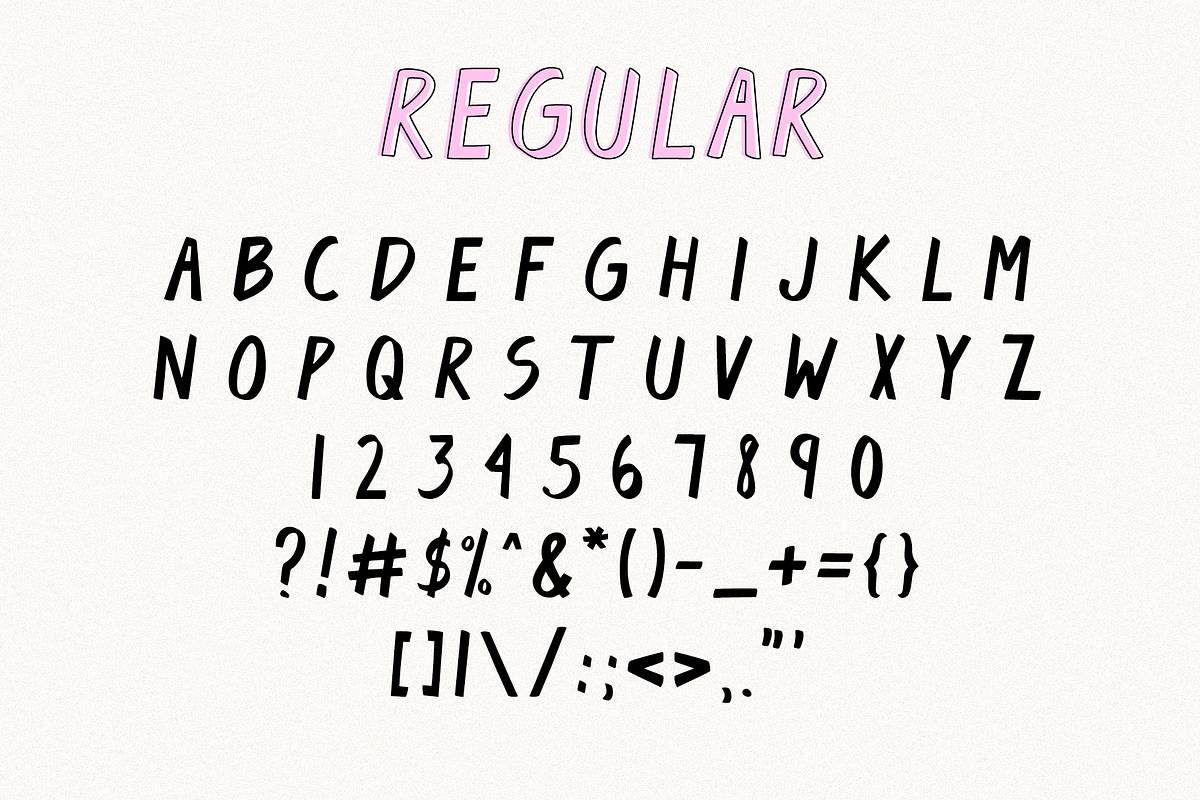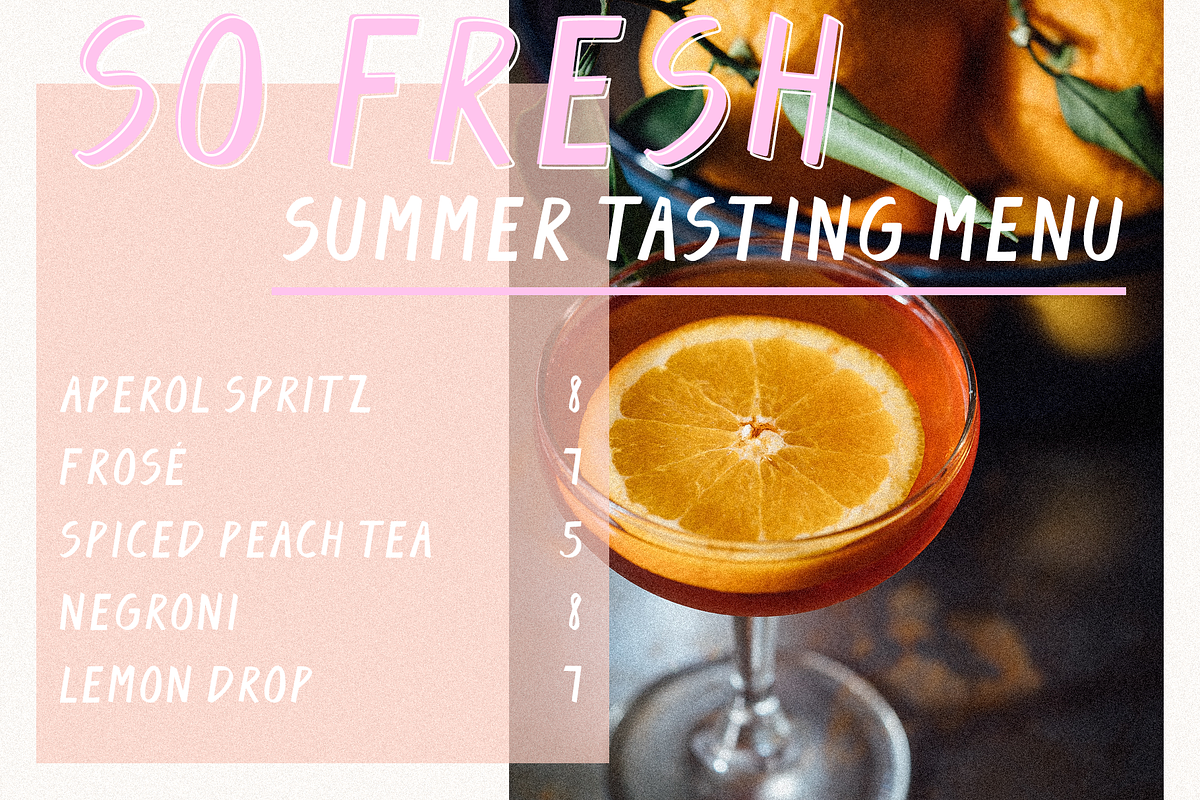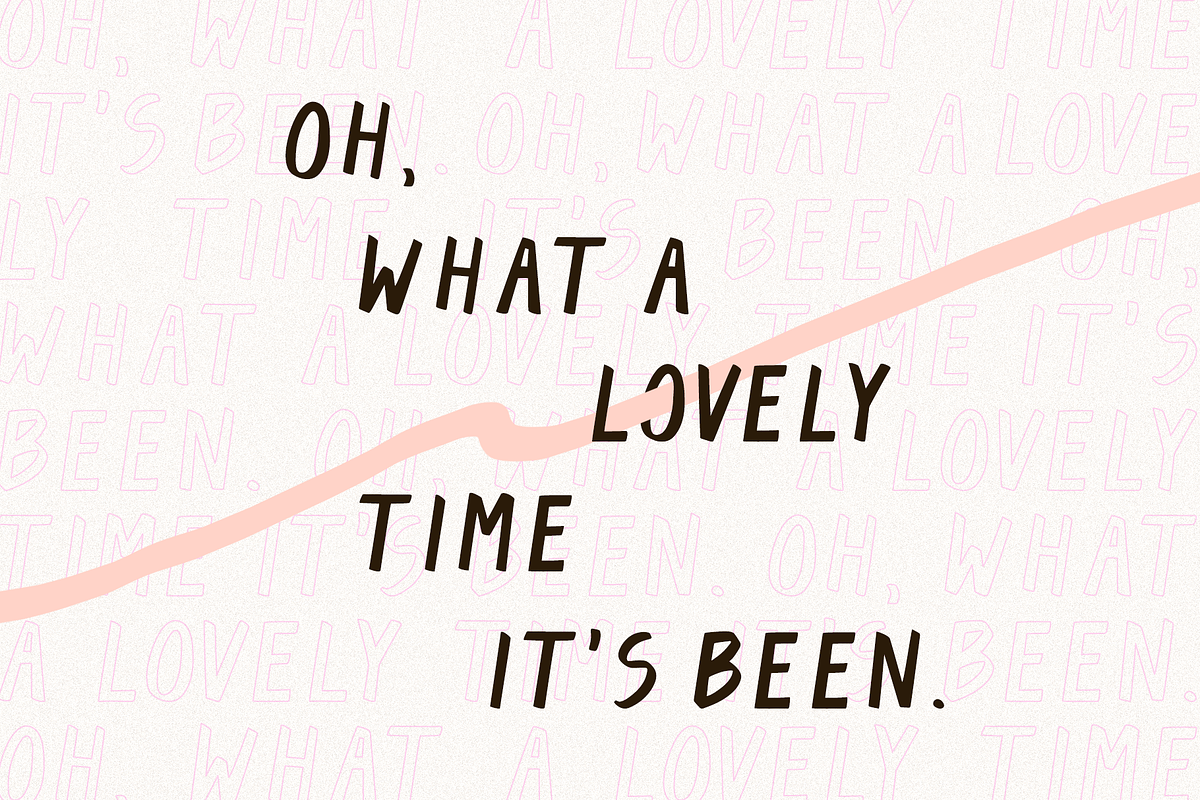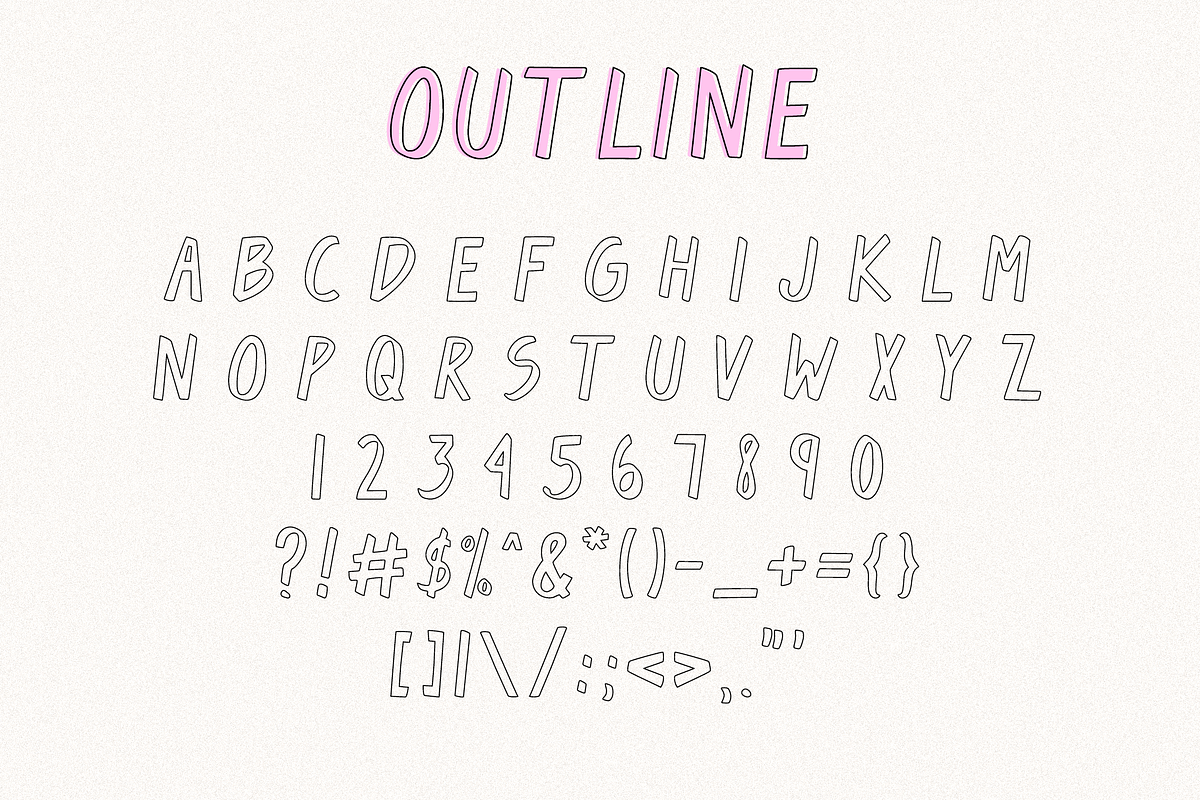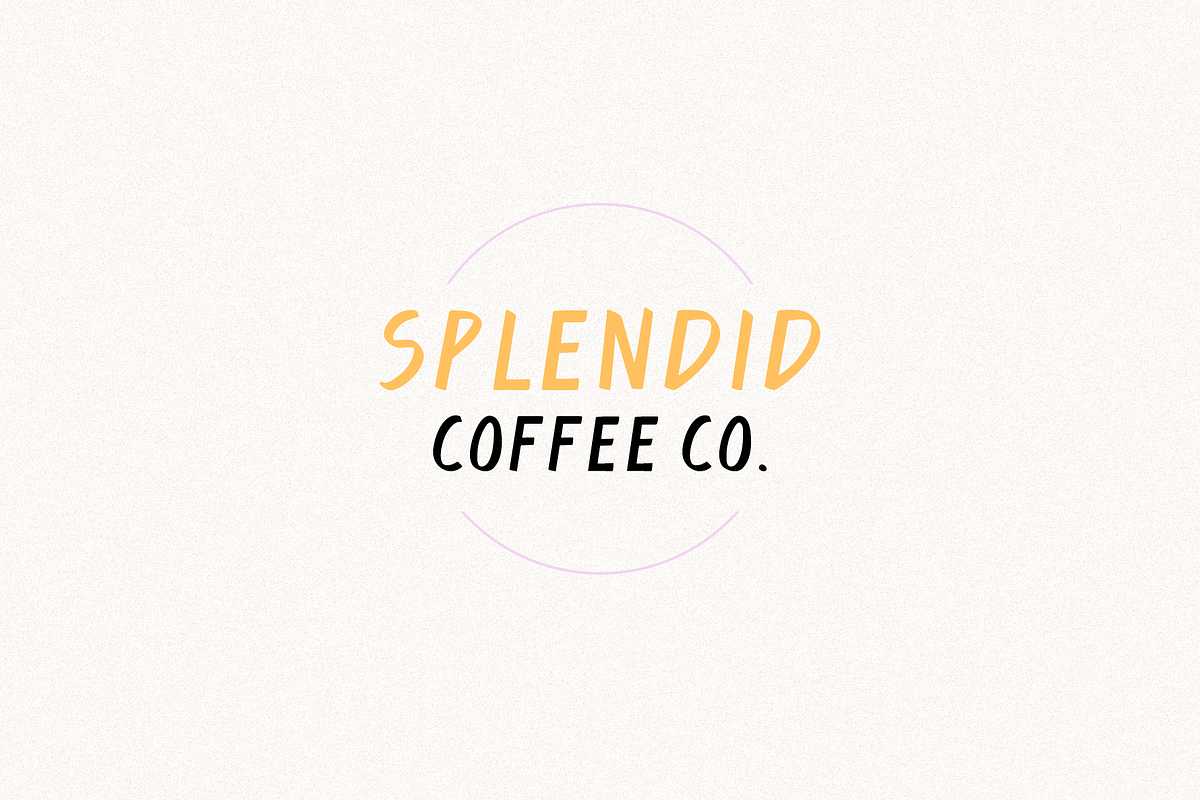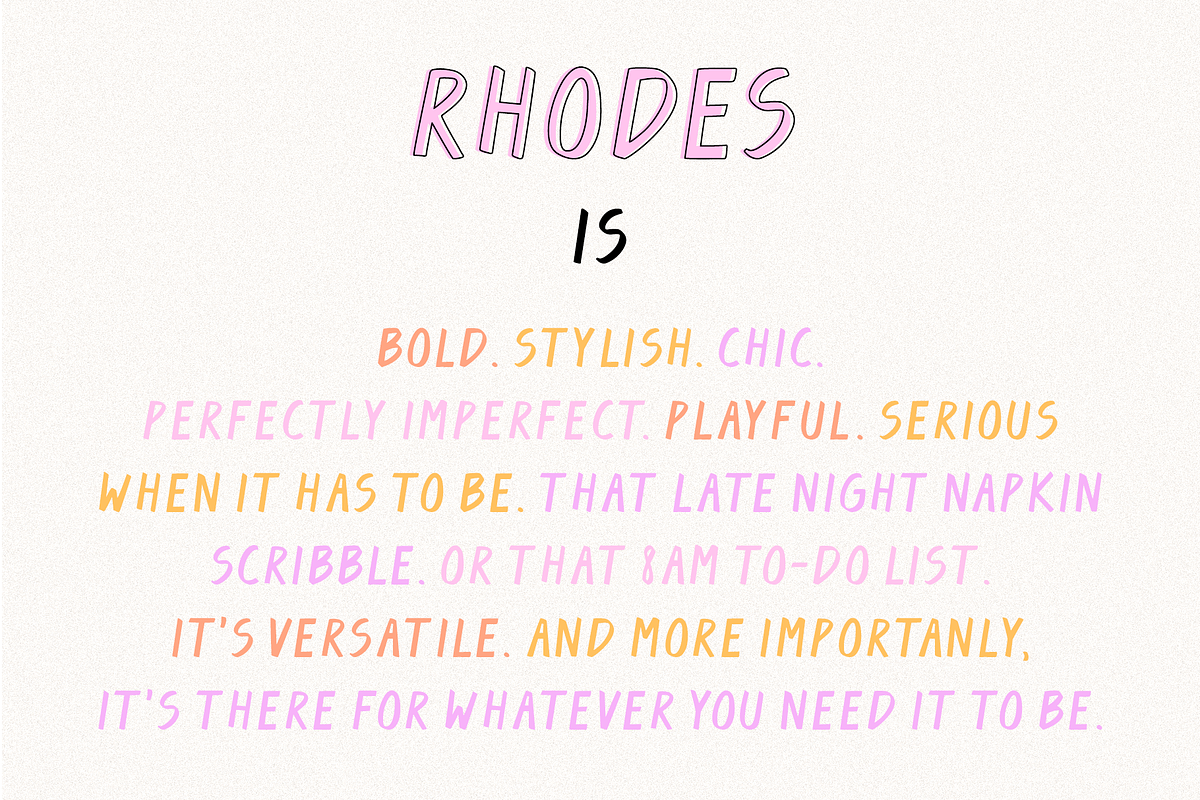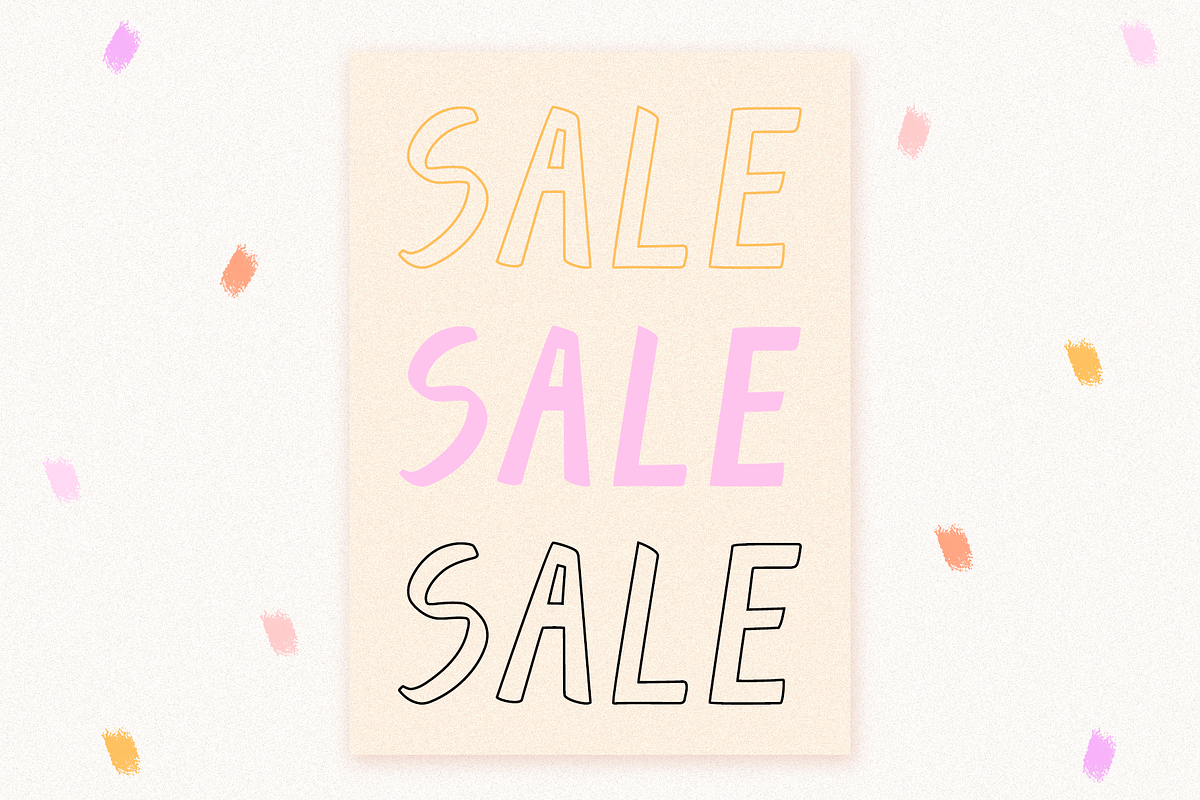
Rhodes | A Stylishly Bold Font Duo
Rhodes is a stylishly bold font duo, complete with both a regular and outline version to complement one another in the most perfectly imperfect of ways. Reminiscent of bold marker signs and last minute scribbles, Rhodes is surprisingly versatile and can be used in many ways. It's playful, but serious when it has to be. It's bold, but also effortlessly chic and nonchalant in nature. Use this hand-lettered font for posters, e-commerce content, blog headers, social media graphics, and so much more!
Rhodes is an uppercase-only font, but I have included the uppercase characters as lowercase so you can use it as easily as possible (with or without caps lock on)